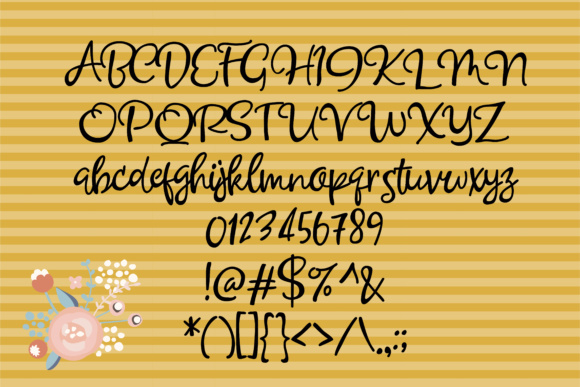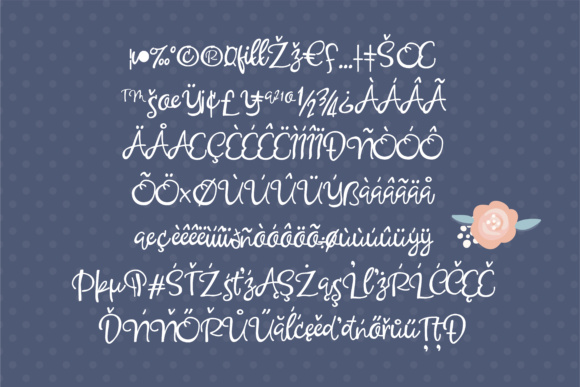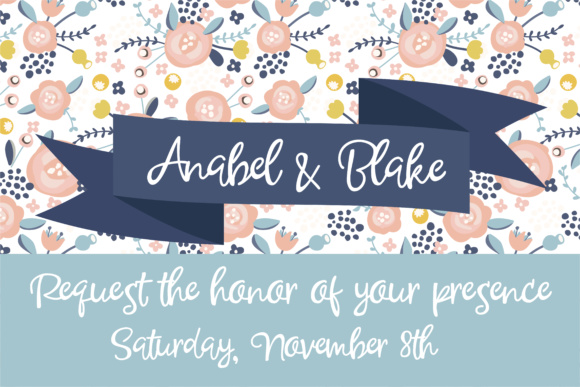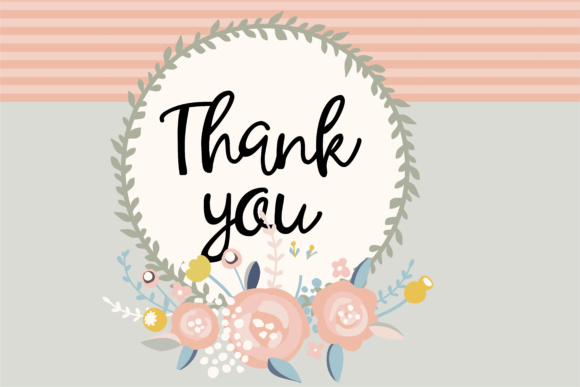
Introducing Destination Wedding Font: The Perfect Choice for Your Next Project
Are you looking for a font that can add a touch of elegance and whimsy to your designs? Look no further than the Destination Wedding Font. This beautiful, handwritten cursive script is perfect for creating stunning visual content that stands out from the crowd. With its casual and relaxed vibe, Destination Wedding Font is ideal for a wide range of projects, from wedding invitations and party decor to branding and digital marketing materials.
What Makes Destination Wedding Font So Special?
Destination Wedding Font is a unique and versatile font that can give your work a bouncy and special feel. Its handwritten cursive script style is both elegant and playful, making it perfect for designs that require a touch of sophistication and whimsy. The font’s casual and relaxed vibe makes it easy to pair with a wide range of other fonts and design elements, allowing you to create a look that’s both cohesive and visually appealing.
Key Features of Destination Wedding Font
- Handwritten Cursive Script Style: Destination Wedding Font features a beautiful, handwritten cursive script style that’s both elegant and playful.
- Casual and Relaxed Vibe: The font’s casual and relaxed vibe makes it perfect for designs that require a touch of sophistication and whimsy.
- Works Well in Print and Digital: Destination Wedding Font works well in both print and digital formats, making it a versatile choice for a wide range of projects.
- Easy to Pair with Other Fonts: The font’s unique style makes it easy to pair with a wide range of other fonts and design elements, allowing you to create a look that’s both cohesive and visually appealing.
Destination Wedding Font is perfect for designers and crafters who want to add a touch of elegance and whimsy to their work. Whether you’re creating wedding invitations, party decor, or branding materials, this font is sure to impress. Its unique style and versatility make it a great choice for a wide range of projects, from digital marketing materials to print publications.
How to Use Destination Wedding Font in Your Designs
- Use it as a Headline Font: Destination Wedding Font is perfect for use as a headline font, adding a touch of elegance and whimsy to your designs.
- Pair it with Other Fonts: The font’s unique style makes it easy to pair with a wide range of other fonts and design elements, allowing you to create a look that’s both cohesive and visually appealing.
- Experiment with Different Colors: Destination Wedding Font works well with a wide range of colors, so don’t be afraid to experiment and find the perfect combination for your design.
Destination Wedding Font is a beautiful, handwritten cursive script that’s perfect for adding a touch of elegance and whimsy to your designs. With its casual and relaxed vibe, this font is ideal for a wide range of projects, from wedding invitations and party decor to branding and digital marketing materials. Whether you’re a designer or crafter, Destination Wedding Font is sure to become a favorite in your collection.